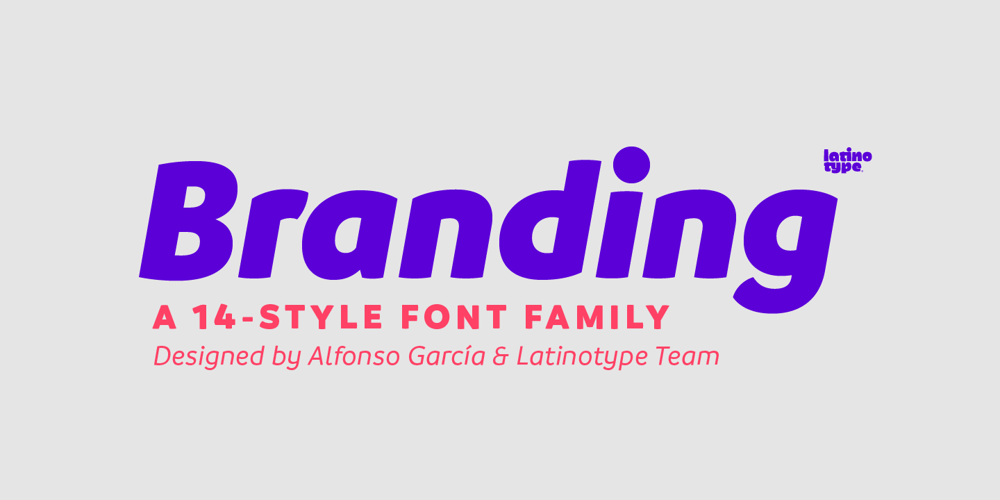
Branding Font Family was designed by Luciano Vergara, Daniel Hernández, Alfonso García, Latinotype Team and published by Latinotype. Branding contains 14 styles and family package options. Branding, a modern typeface for modern needs! Branding, especially designed for meeting contemporary aesthetic and functional needs, is the interpretation of a modern typeface from the designer’s own perspective. This typeface encapsulates a wide range of nuances and combines, seemingly, opposite elements such as technology and friendly rounded shapes. In addition, alternative characters make Branding an ideal tool for both graphics designers and art directors. Branding is a sans-serif spurless typeface with a medium-large x-height, slightly wider horizontal proportions, straight curves and convex terminals. This font is well-suited for logotypes, isotypes, short text, etc. Branding comes in 7 weights—ranging from Thin to Black—with matching italics and includes a set of 544 characters that supports 128 different languages. European accents, old style numbers and multiple alternates are also included.